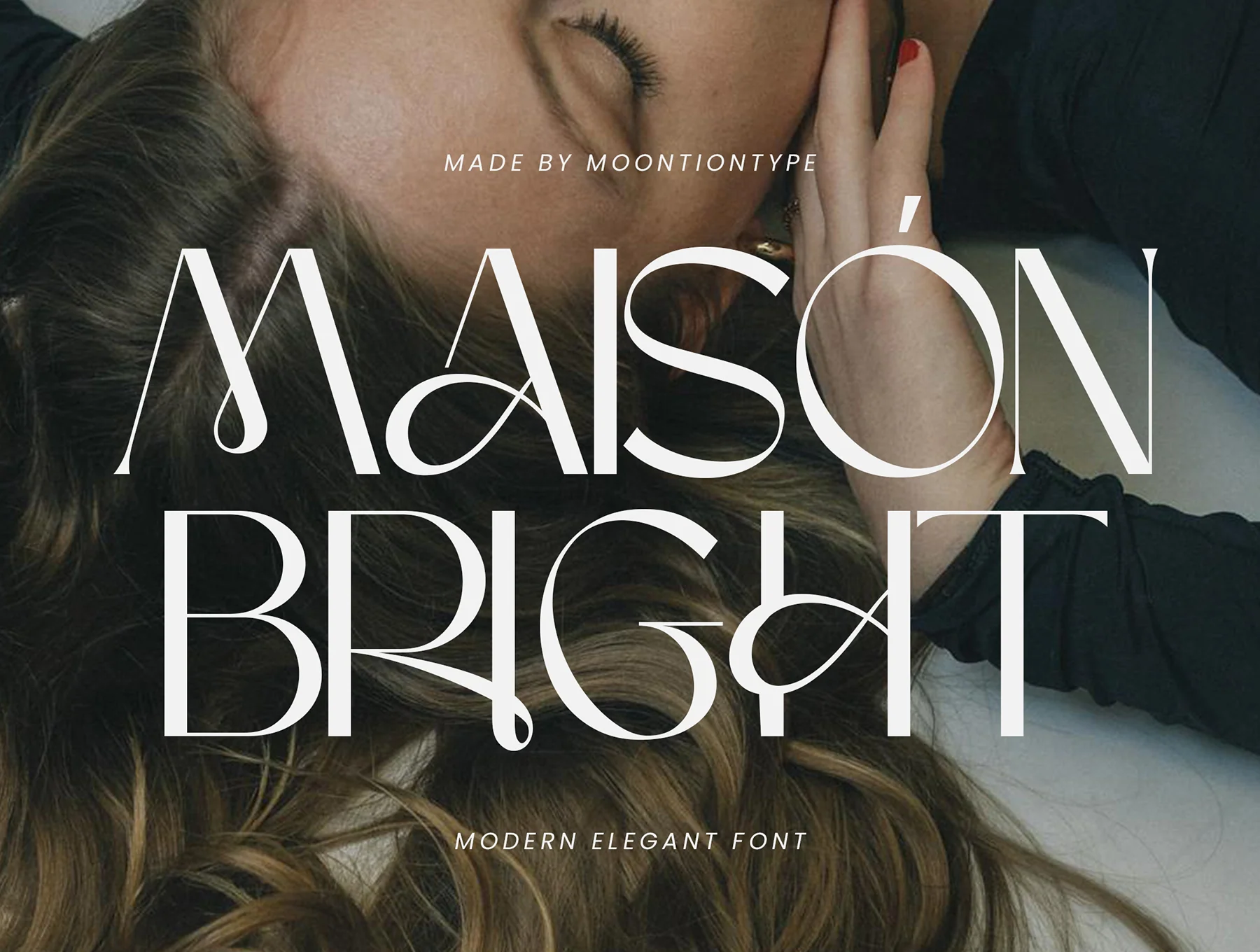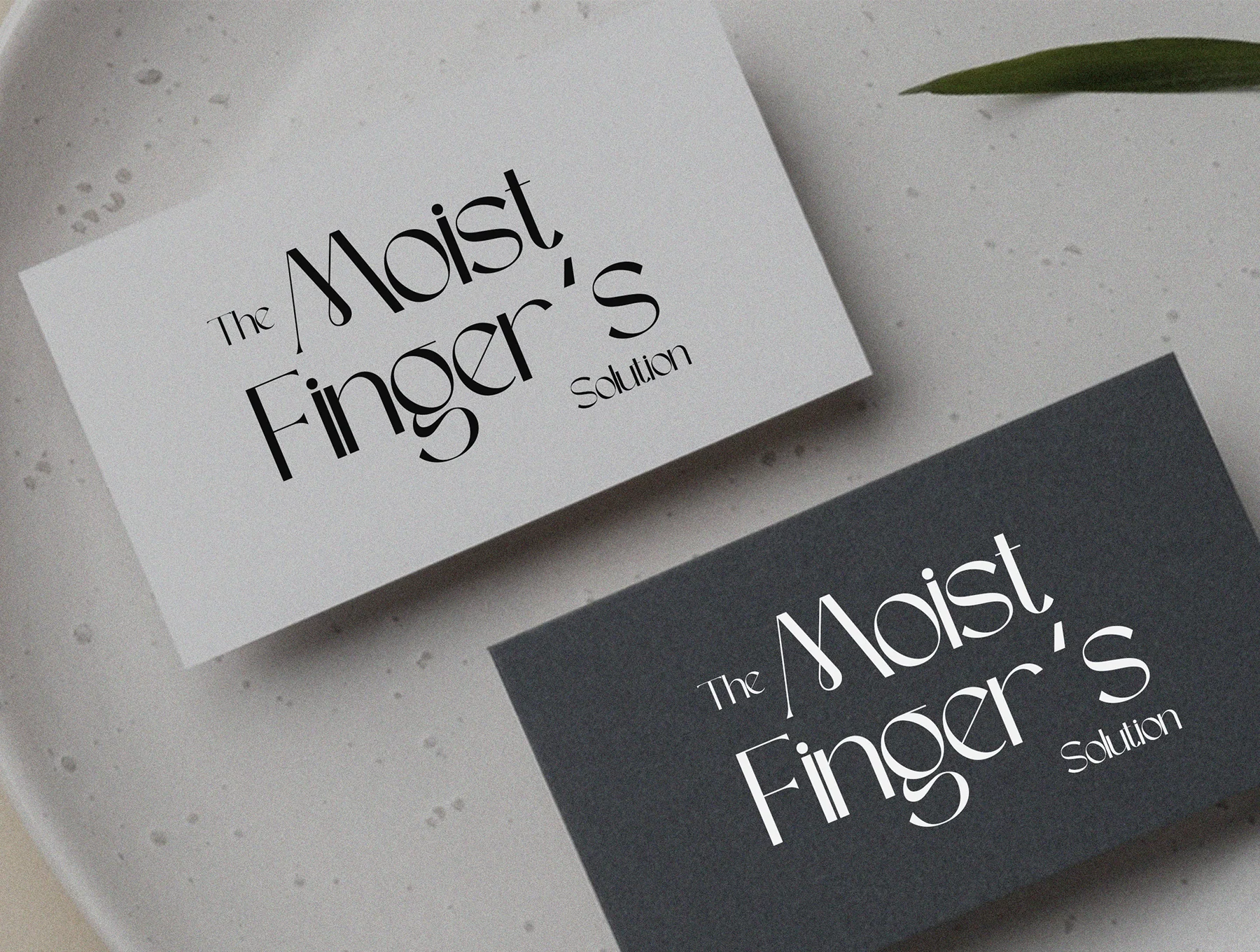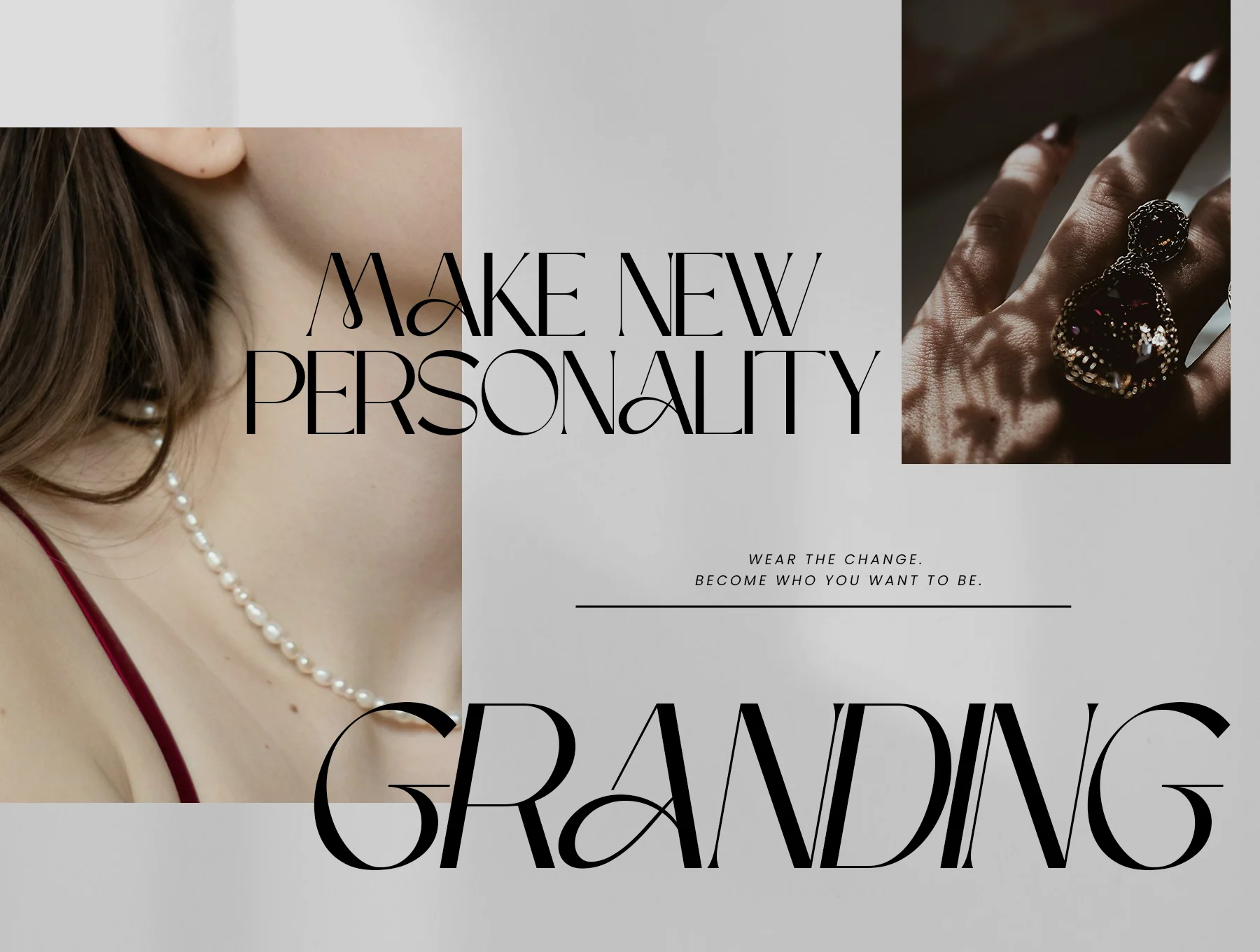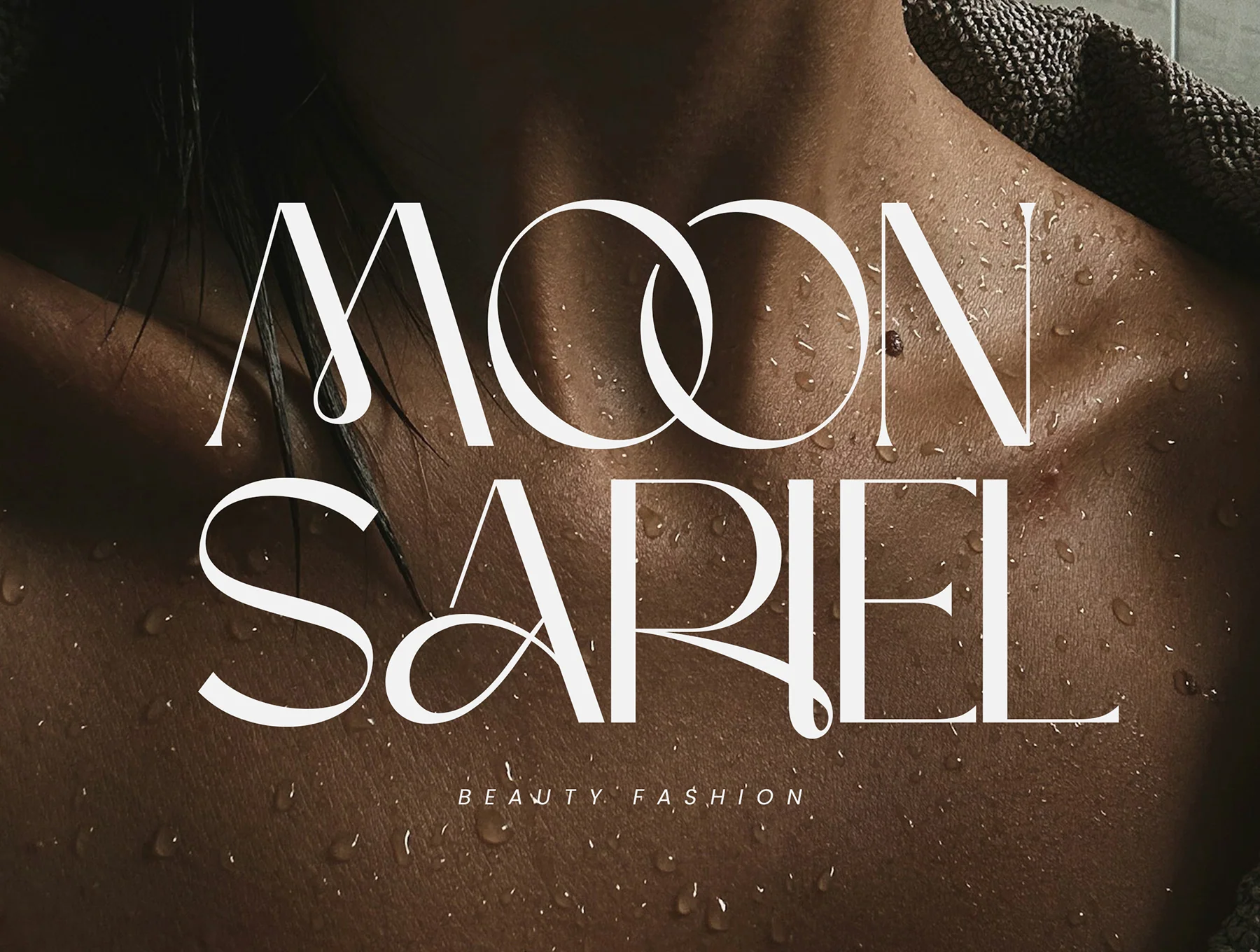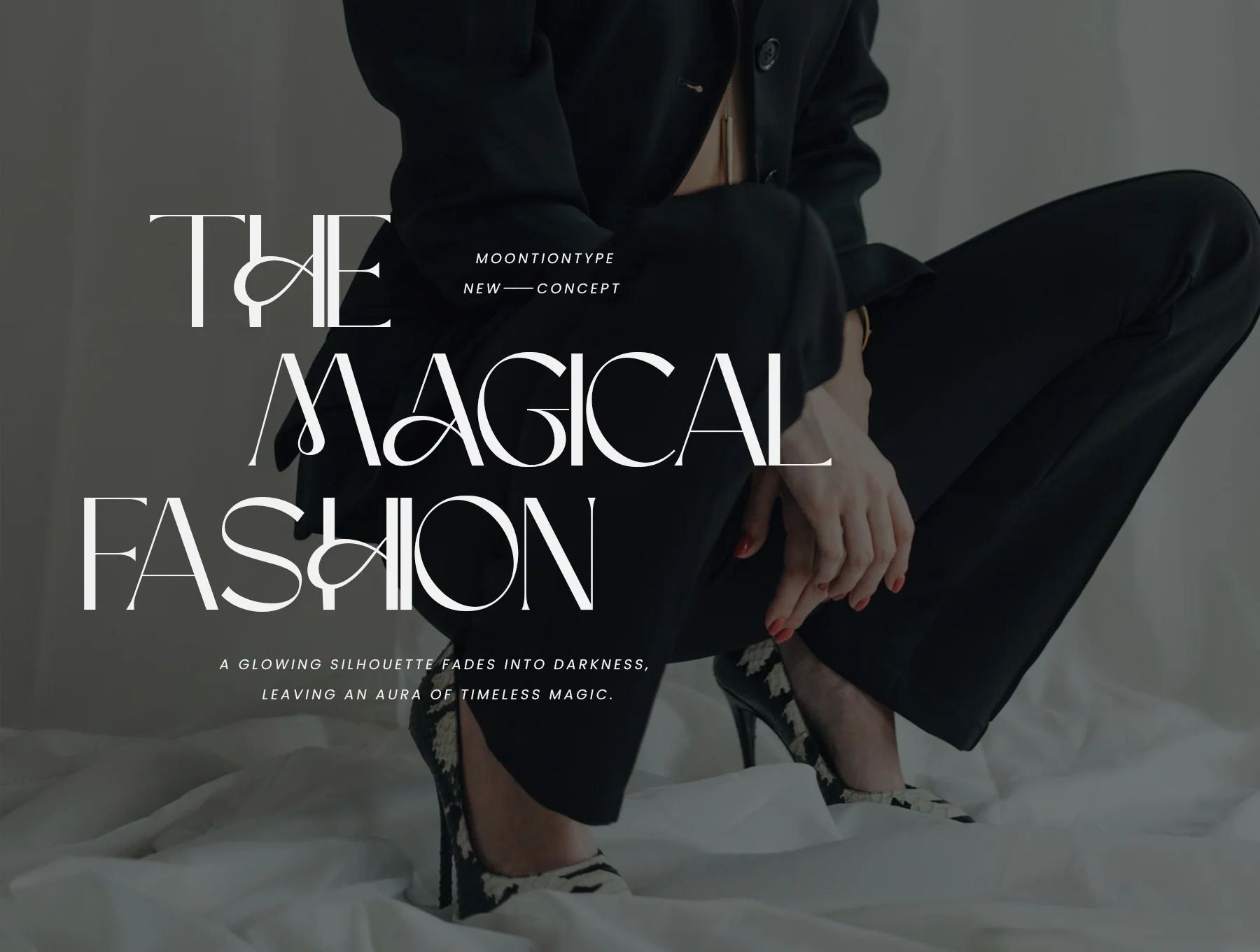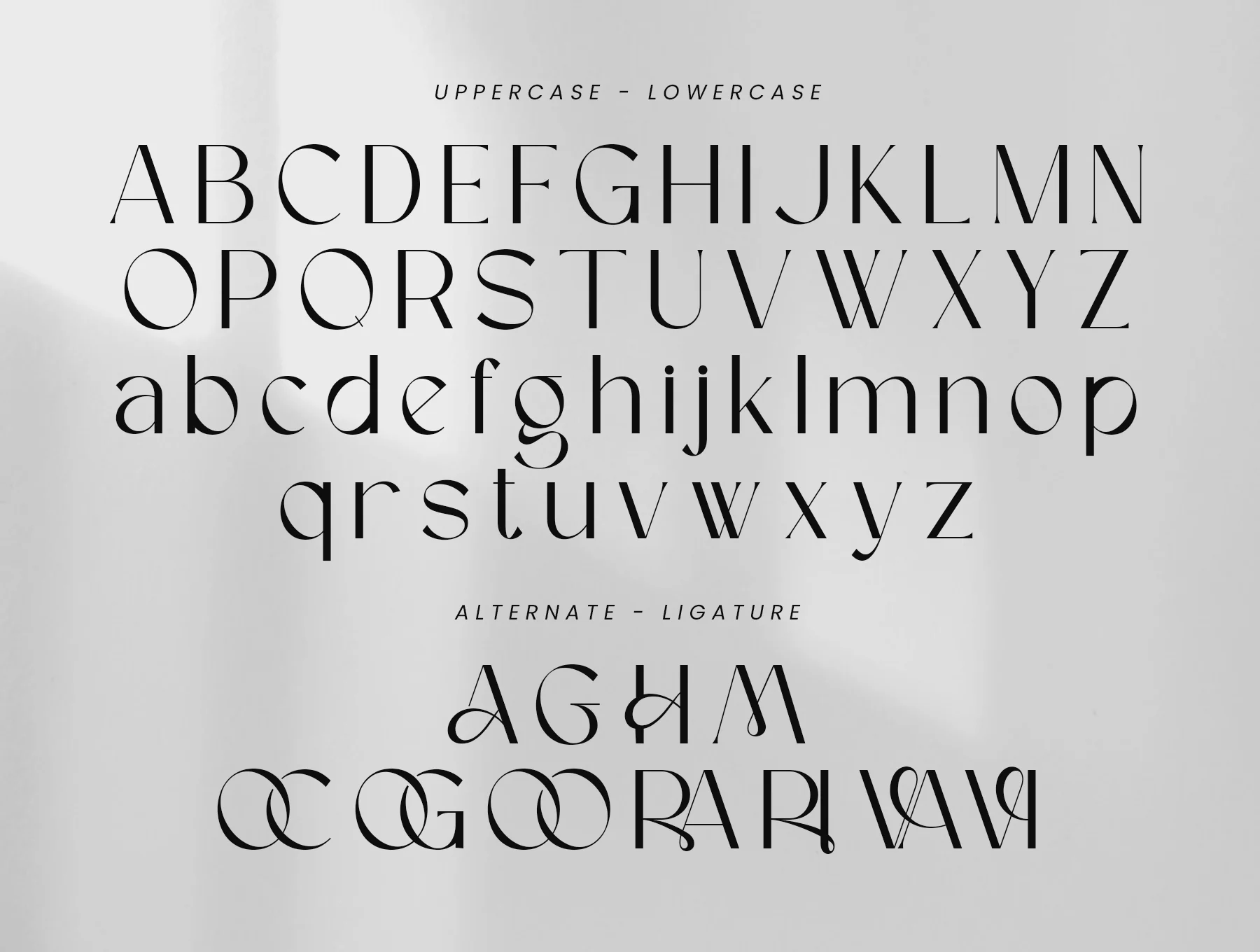
Maison Bright Font
Sleek Contemporary Sans Serif Typeface
Maison Bright is a sleek sans serif typeface blending couture-inspired refinement with graceful, fluid shapes. Elegant curves, chic ligatures, and premium strokes suit branding, magazines, logos, packaging, invitations, and upscale designs. Includes uppercase, lowercase, numerals, punctuation, multilingual support, alternates, ligatures, plus OTF/TTF files.